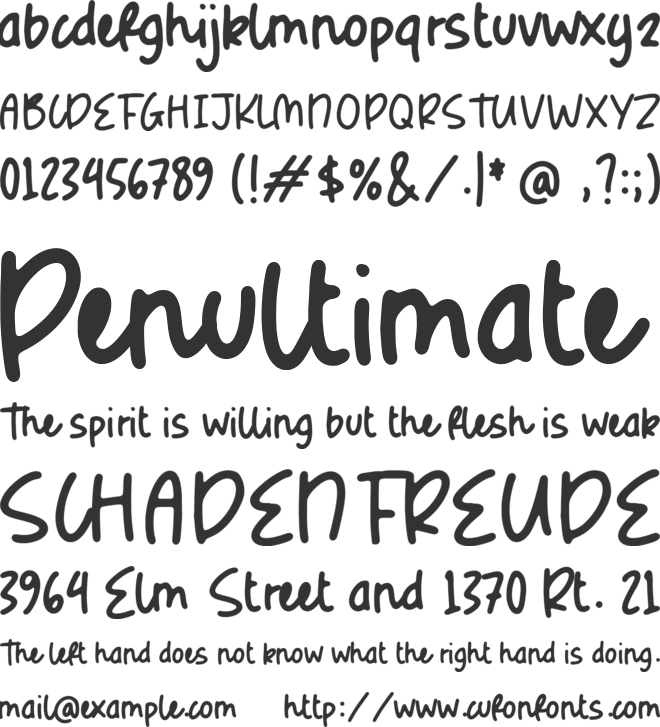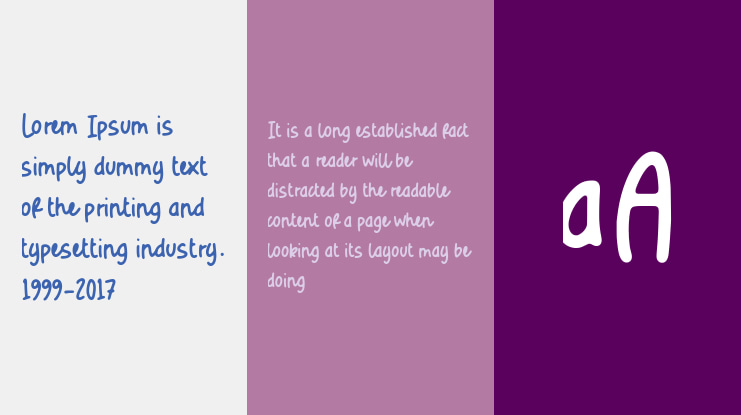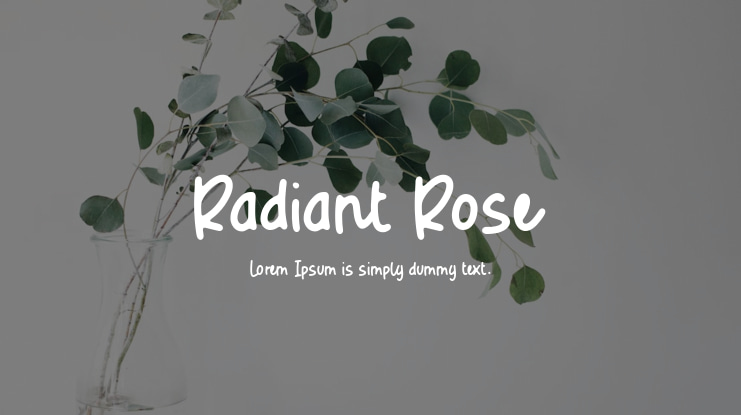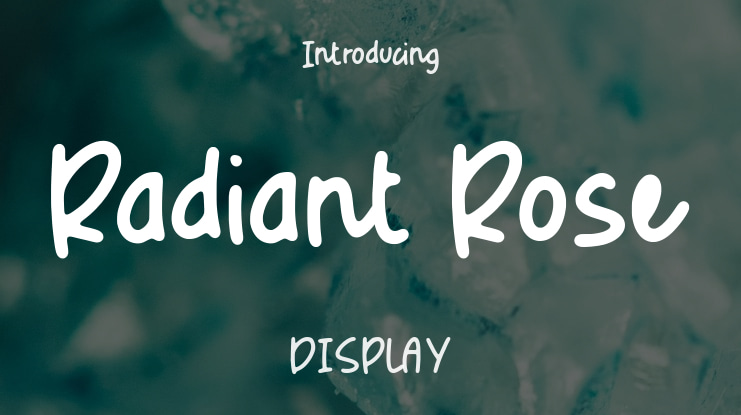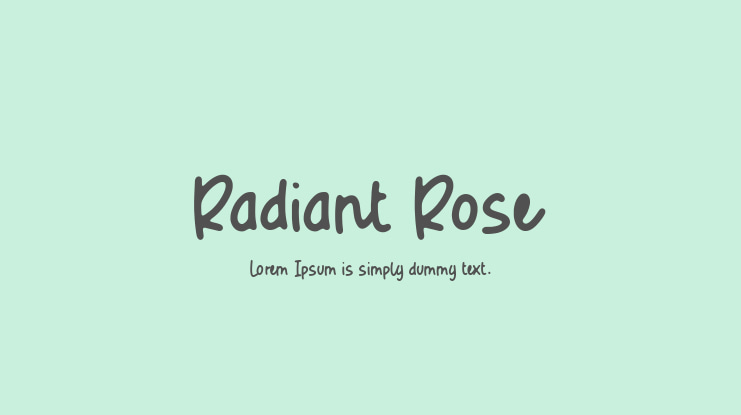
Radiant Rose Font
Presented by Timurtype Studio, Radiant Rose is a charming handwritten font that exudes elegance and creativity. Its graceful strokes and soft curves bring a feeling of warmth and intimacy, making it an ideal choice for conveying heartfelt messages or adding a whimsical touch to any project. Each letter is meticulously crafted to give your quotes, invitations, and artistic endeavors a unique personality, ensuring that every word sparkles with beauty and sophistication.